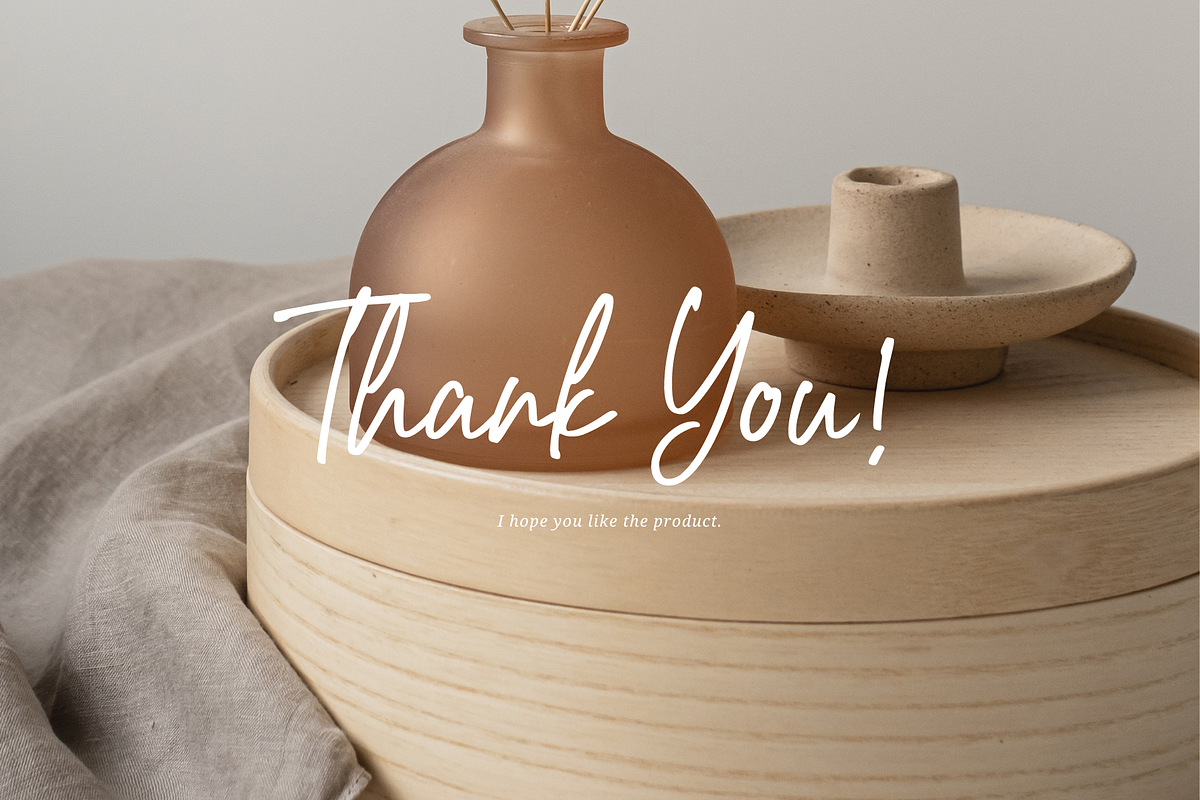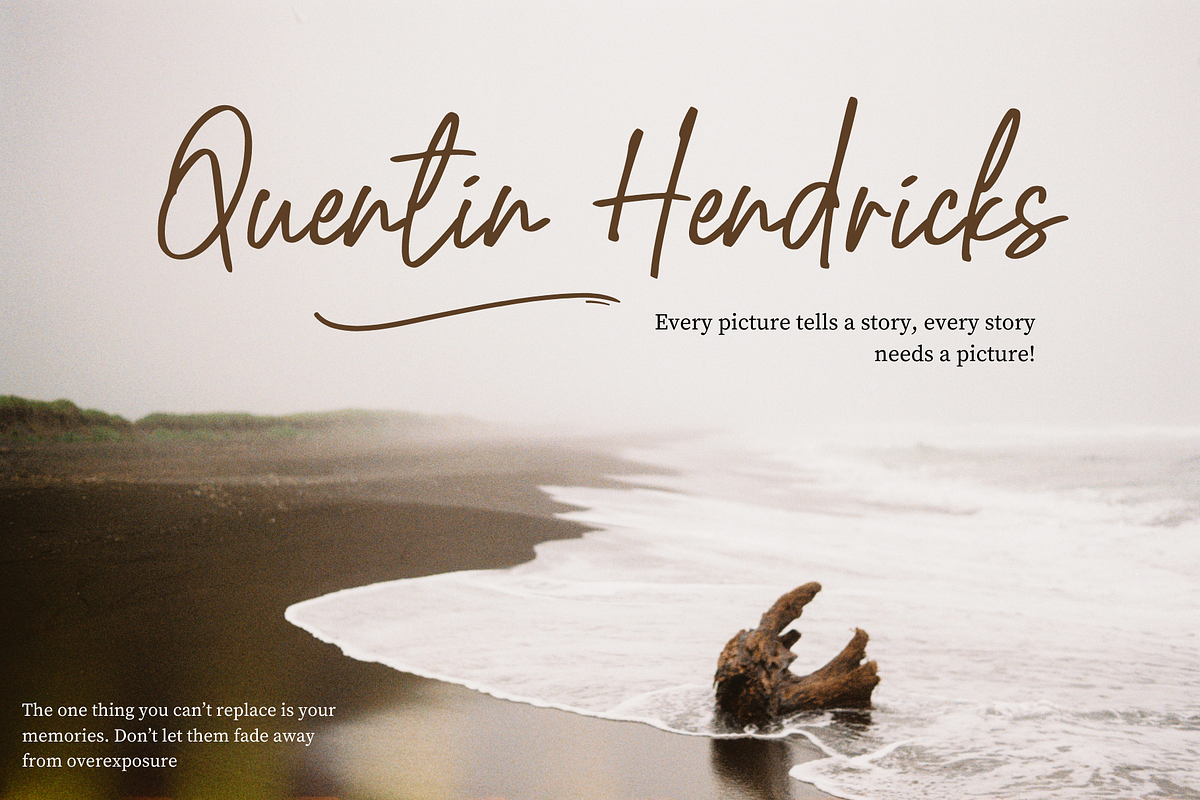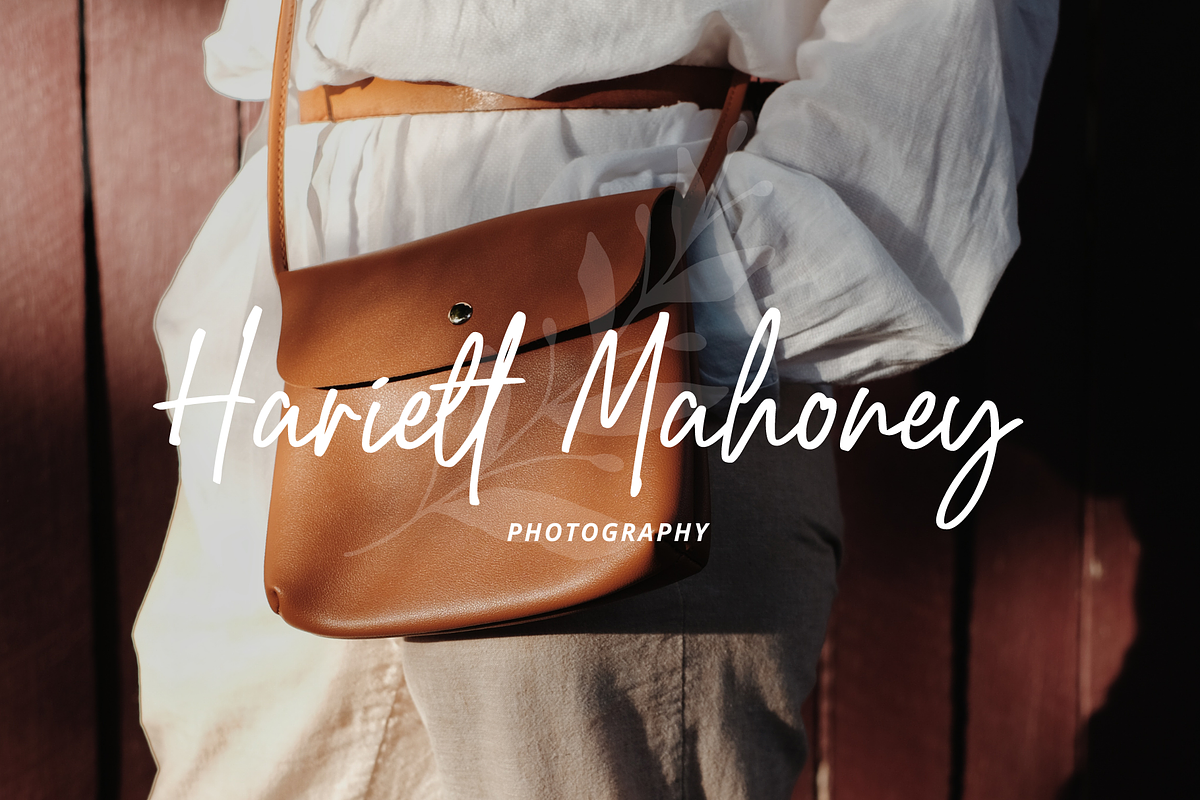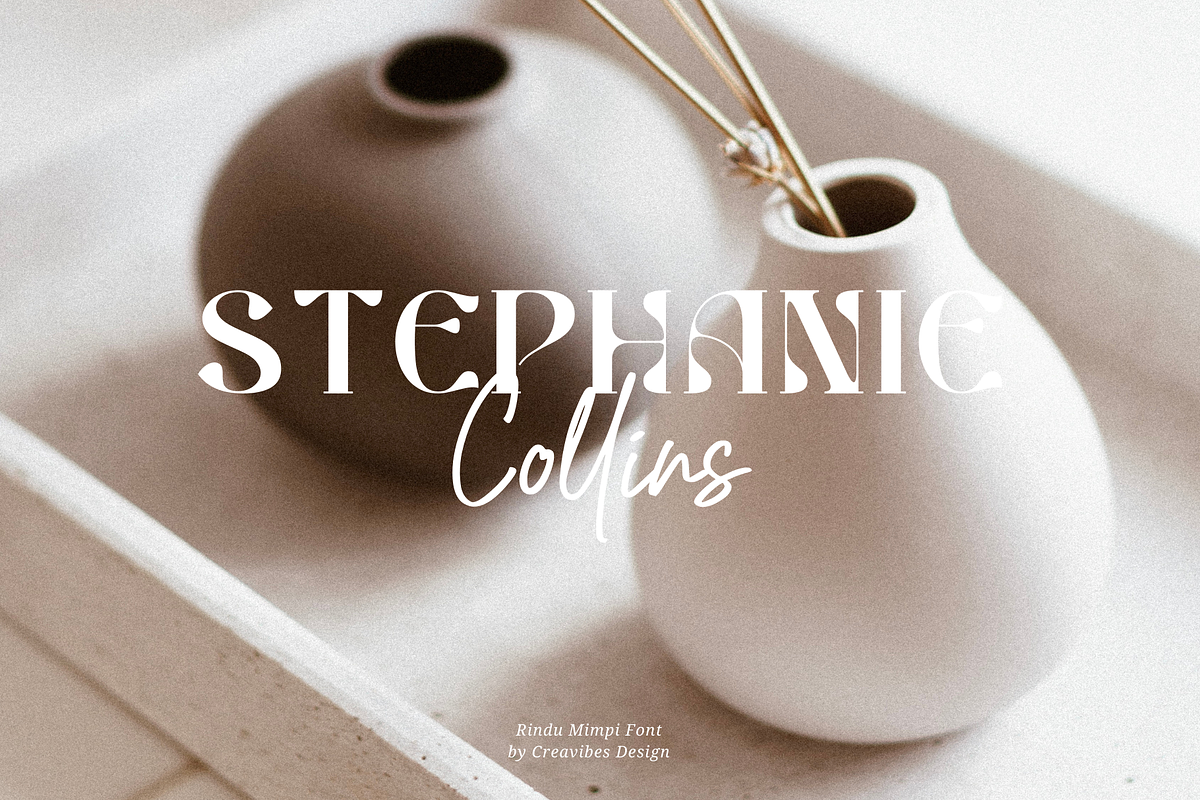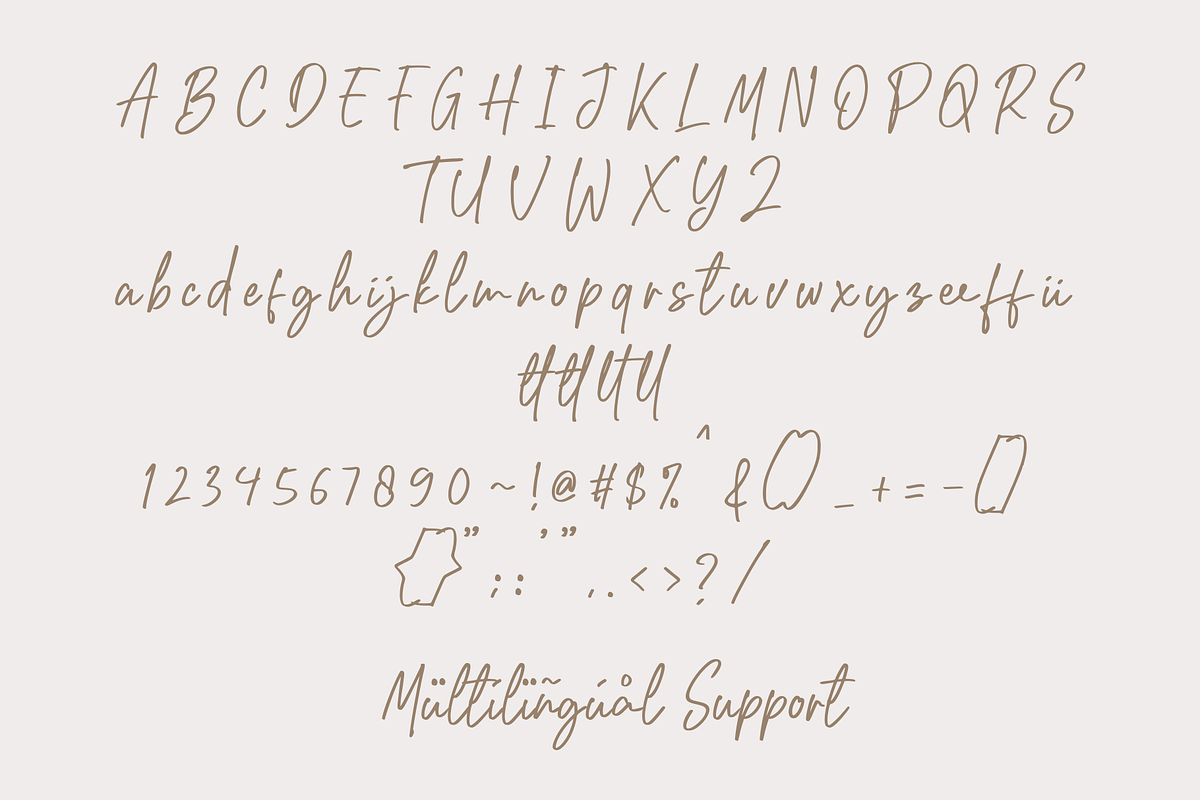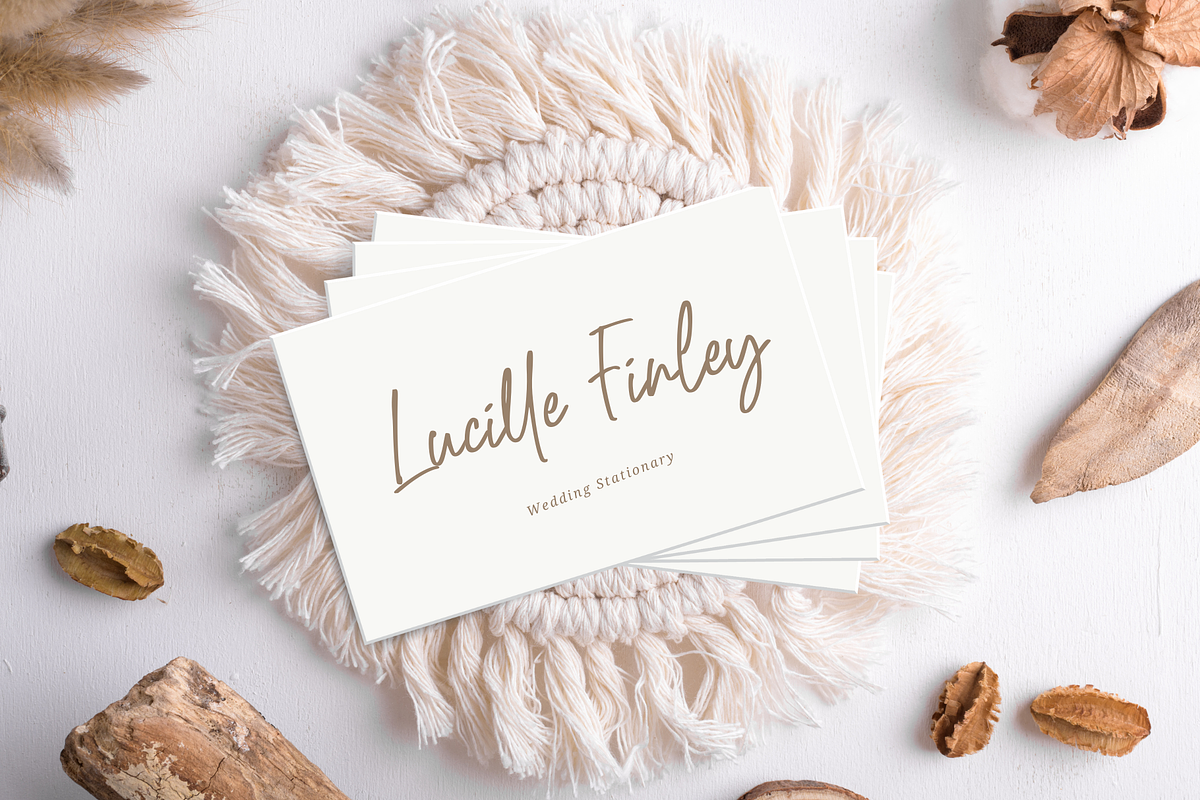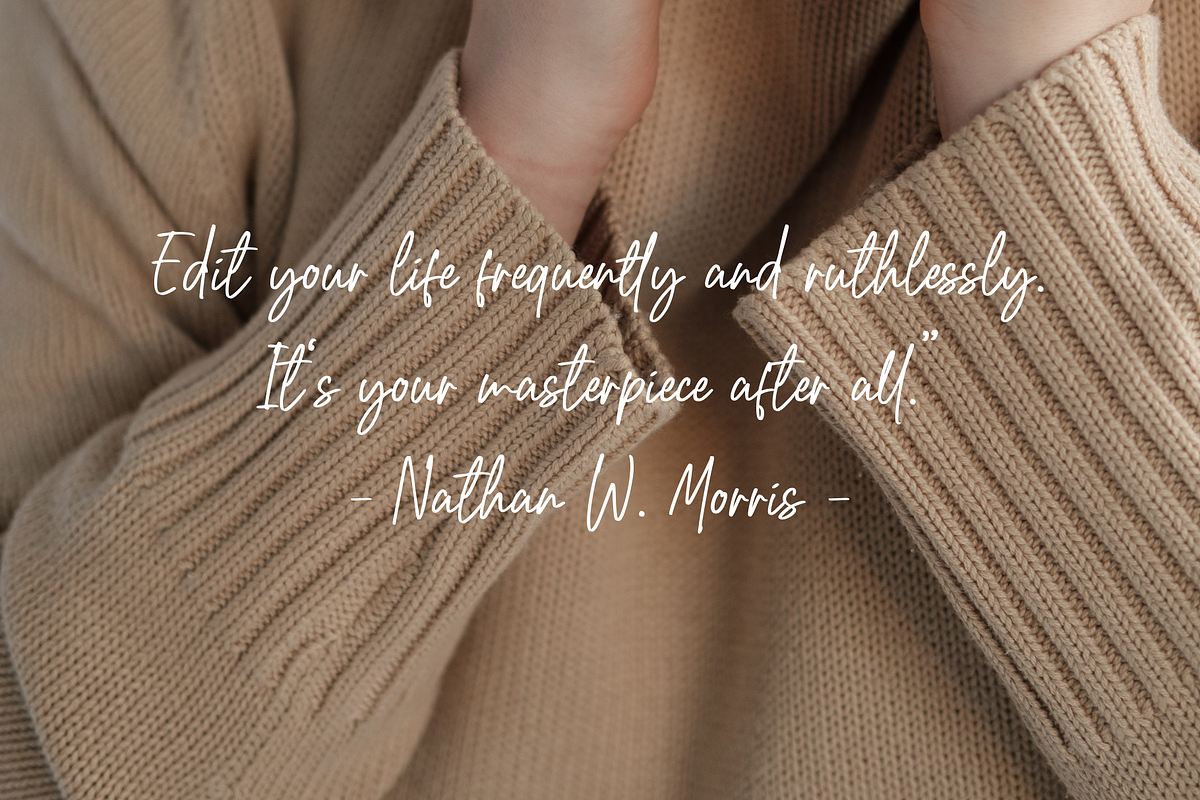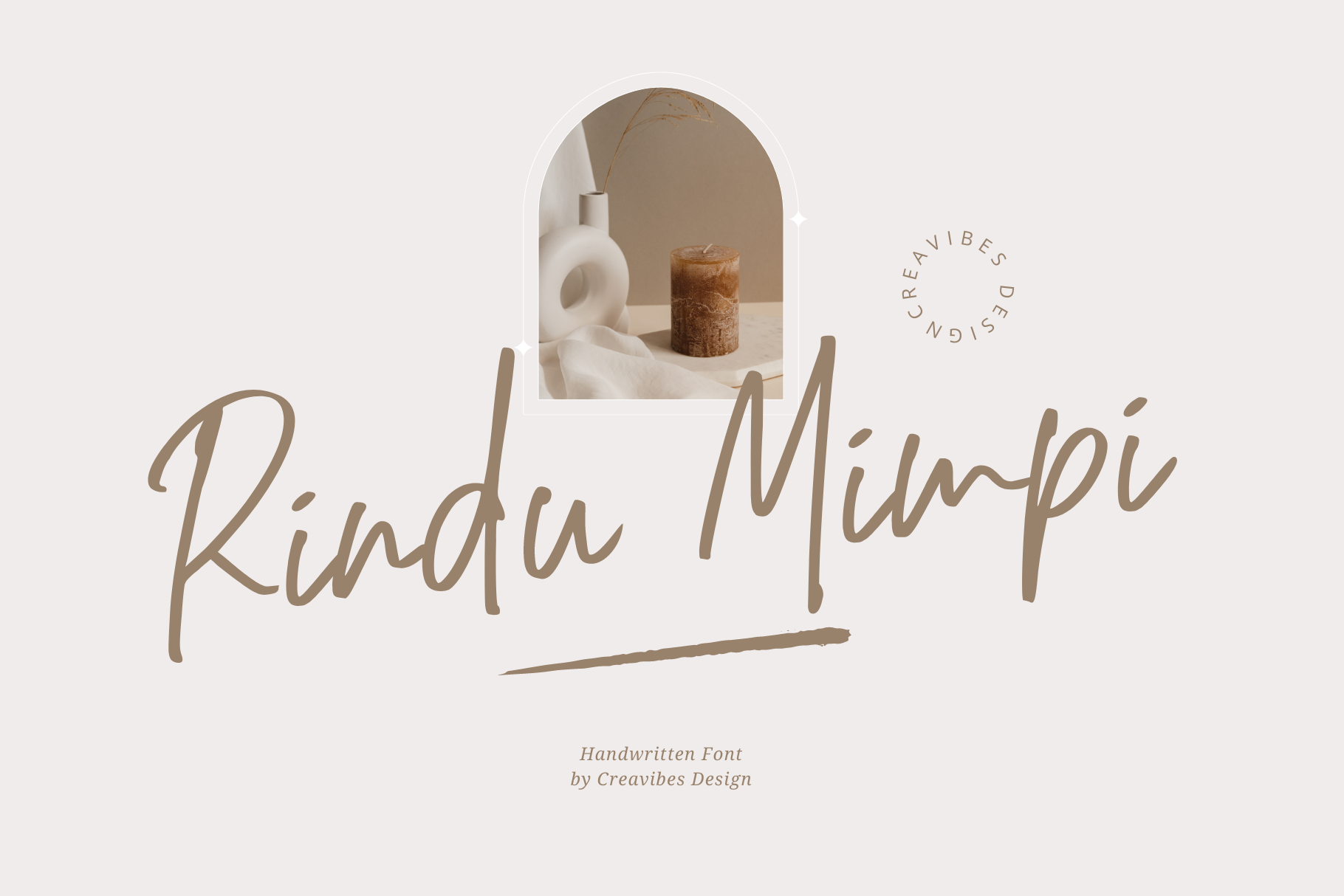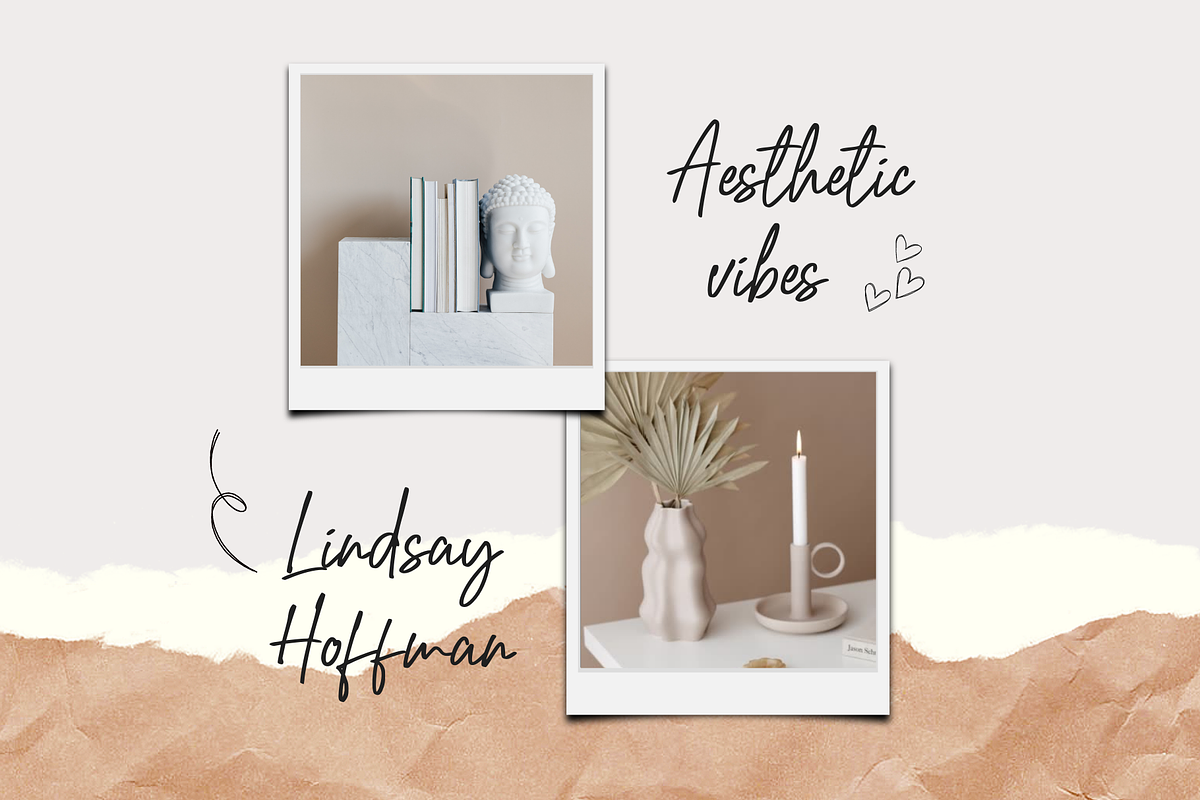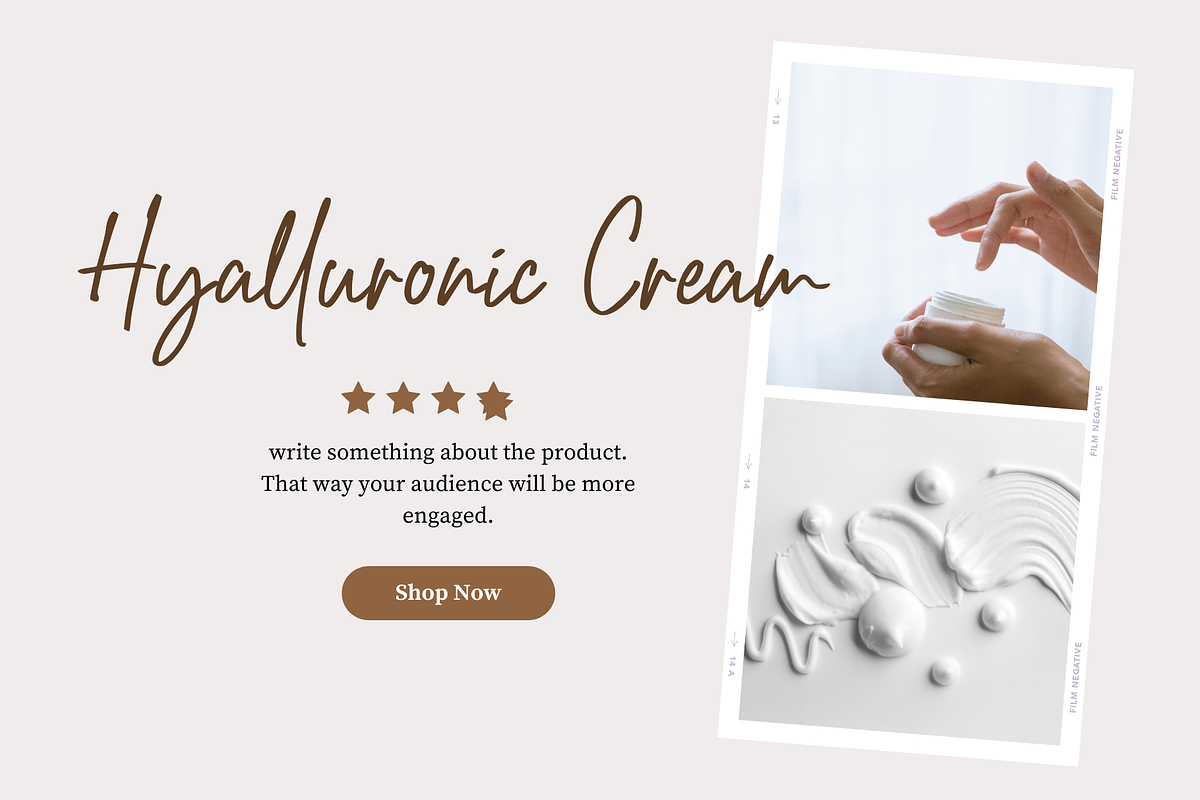
Rindu Mimpi - Script Font
Rindu Mimpi - Script Font, this font is perfect for branding, invitation, stationery, wedding designs, social media posts, advertisements, product packaging, product designs, label, photography, watermark, special events, and more.
- Uppercase and lowercase letters
- Multilingual, numerals, and punctuation